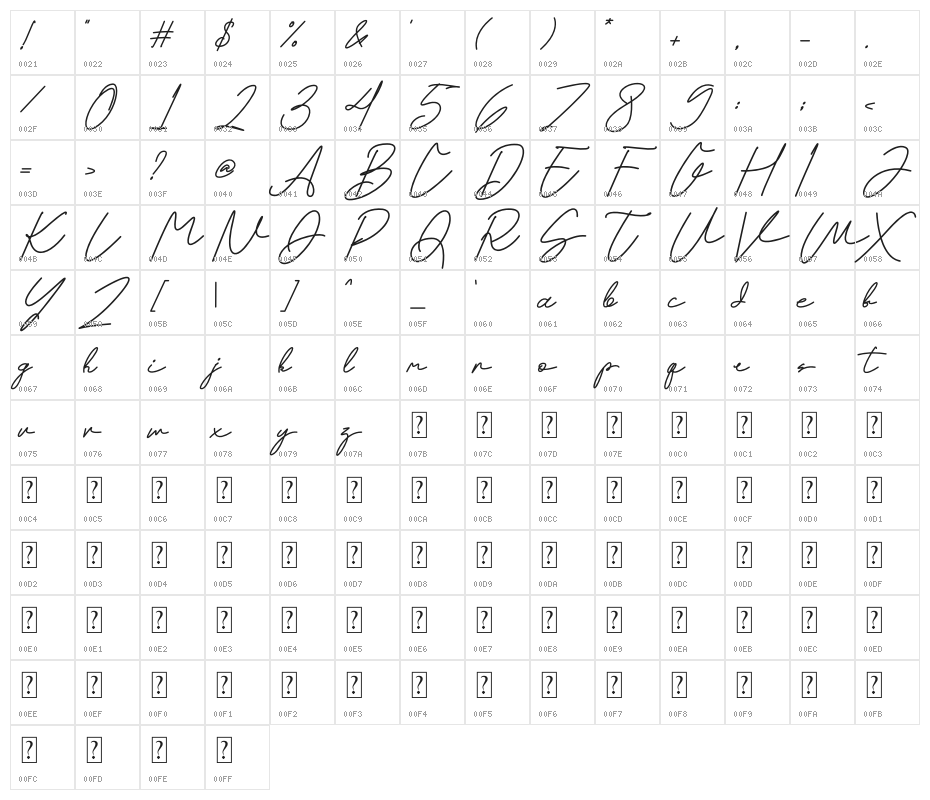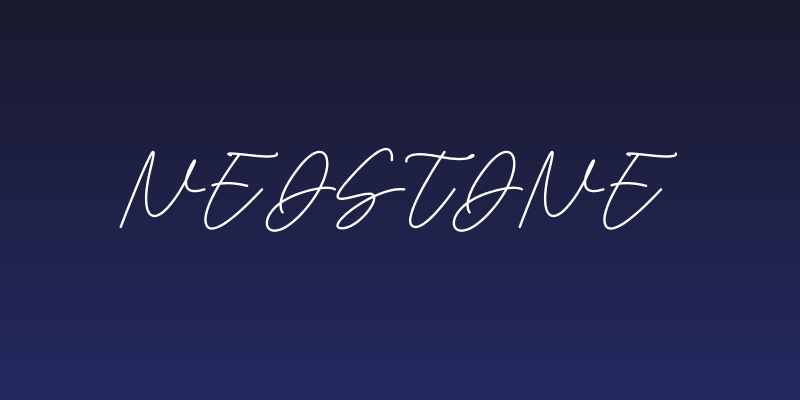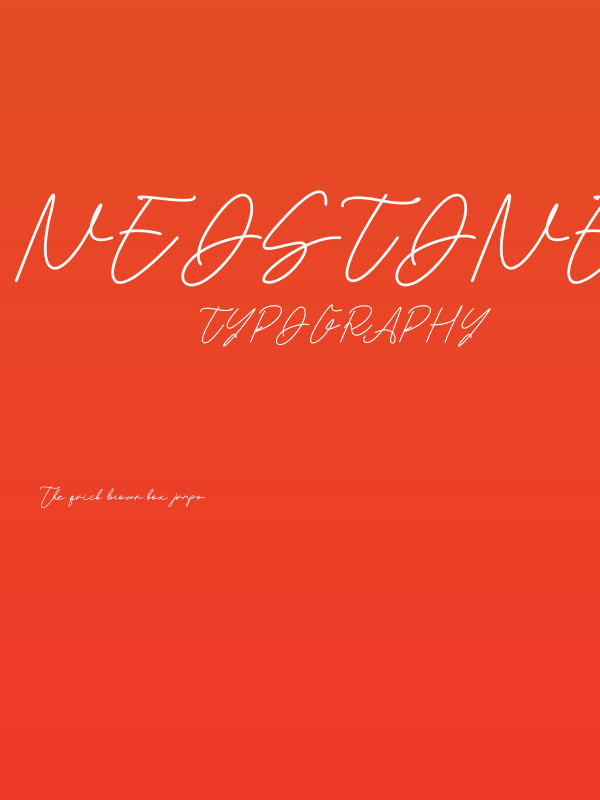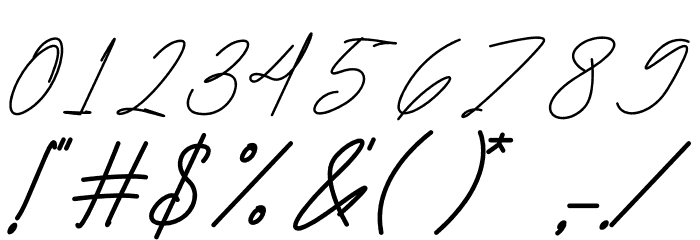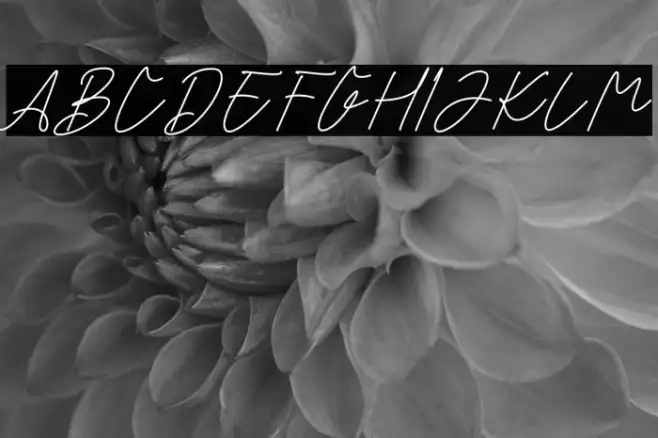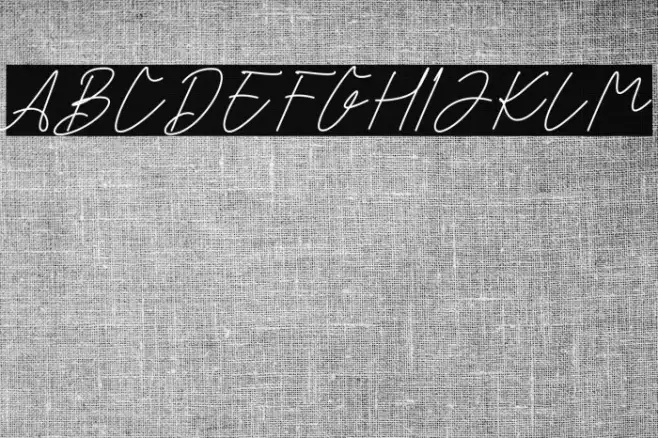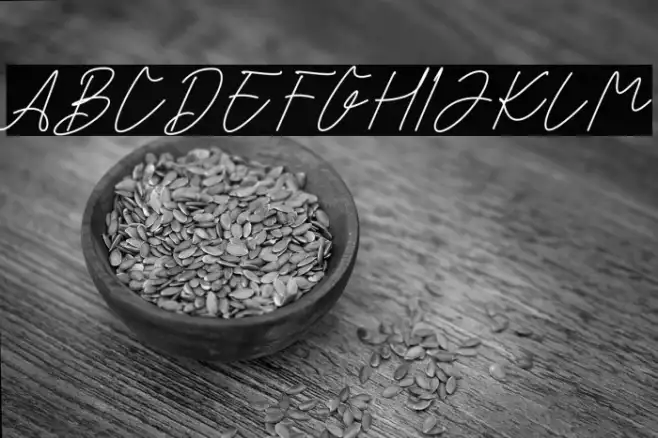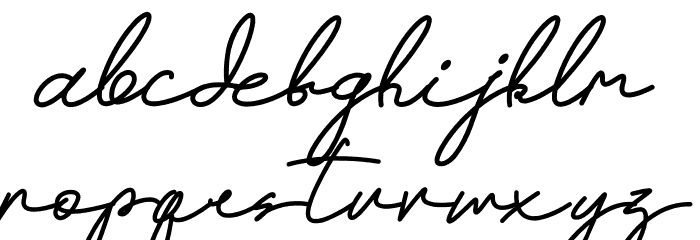
NeoStone Font
NeoStone Description
This font features a dynamic and fluid cursive style, characterized by its elegant and flowing letterforms. The uppercase letters exhibit a graceful slant with elongated strokes, while the lowercase letters maintain a consistent rhythm and smooth connections. The numerals are designed with a similar fluidity, ensuring a cohesive look across all characters. Special characters are thoughtfully integrated, maintaining the overall aesthetic. This font's handwritten quality adds a personal and artistic touch, making it suitable for projects that require a sense of elegance and sophistication.
| Proposed Projects | Ideal for wedding invitations, personal branding, greeting cards, and artistic projects. |